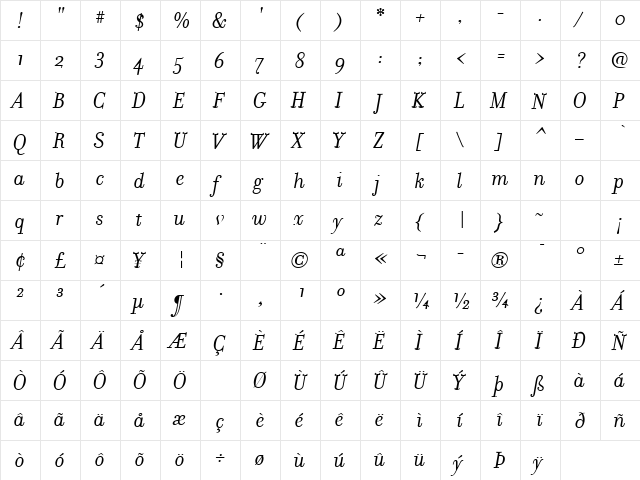
FilosofiaItalic Italic Font Preview
FilosofiaItalic Italic
FilosofiaItalic Italic Font Details
Design Context for FilosofiaItalic Typeface
FilosofiaItalic offers clean, dependable letterforms without strong stylistic allegiance, making it a practical choice for designers who need flexibility. Its italic angle brings a sense of urgency and motion to the letterforms.
Pro Tip: Try FilosofiaItalic for annotation and caption copy alongside an upright companion — the contrast in angle creates a dynamic but ordered typographic system.